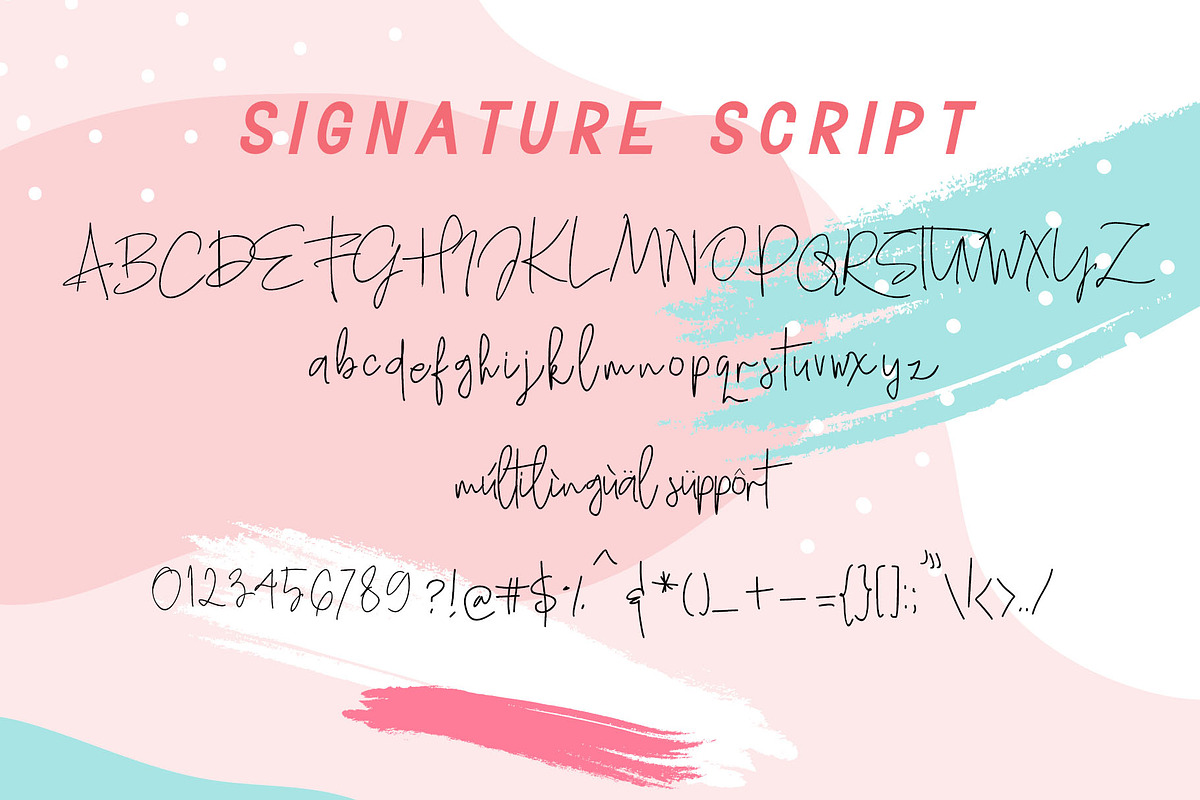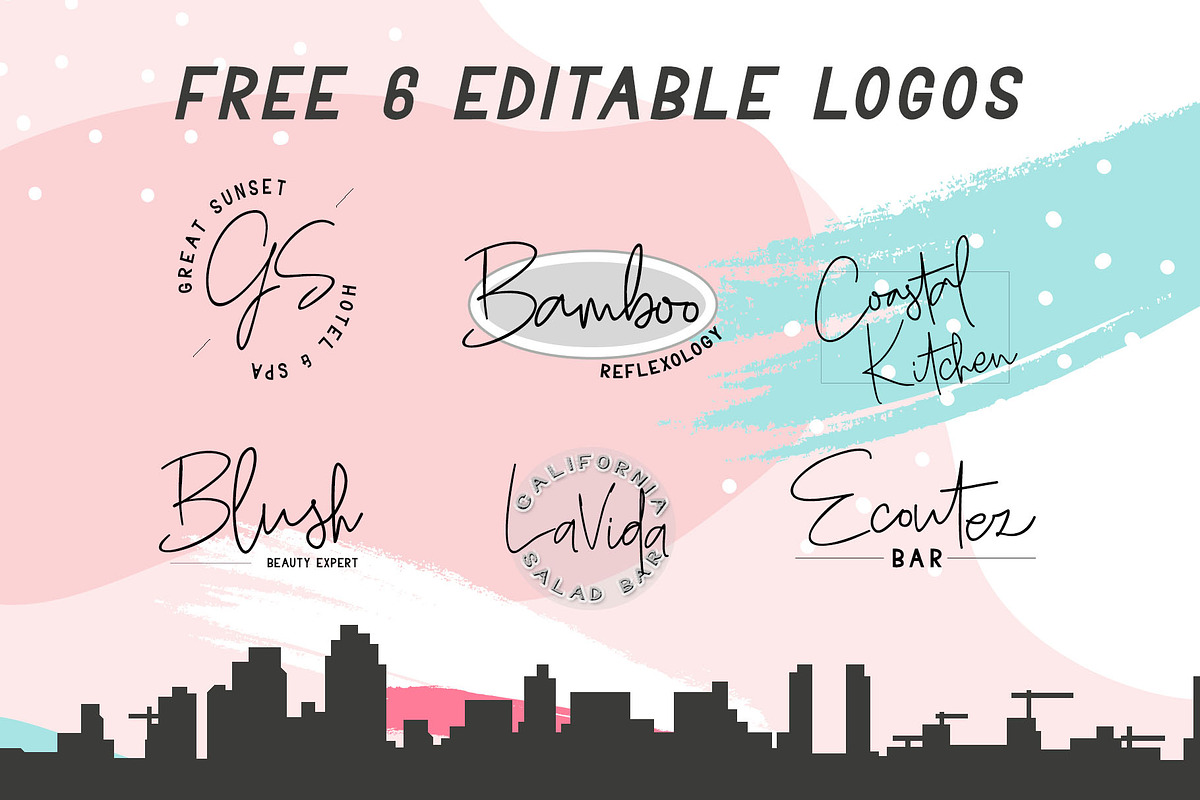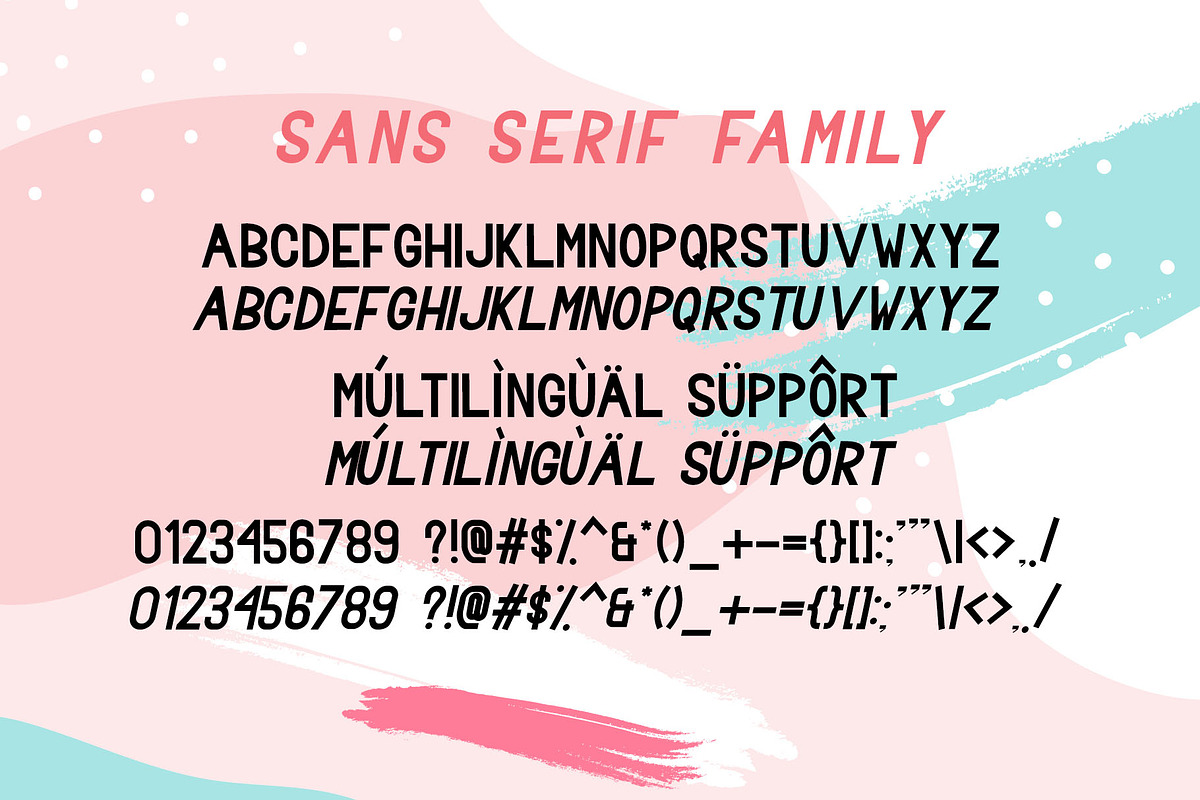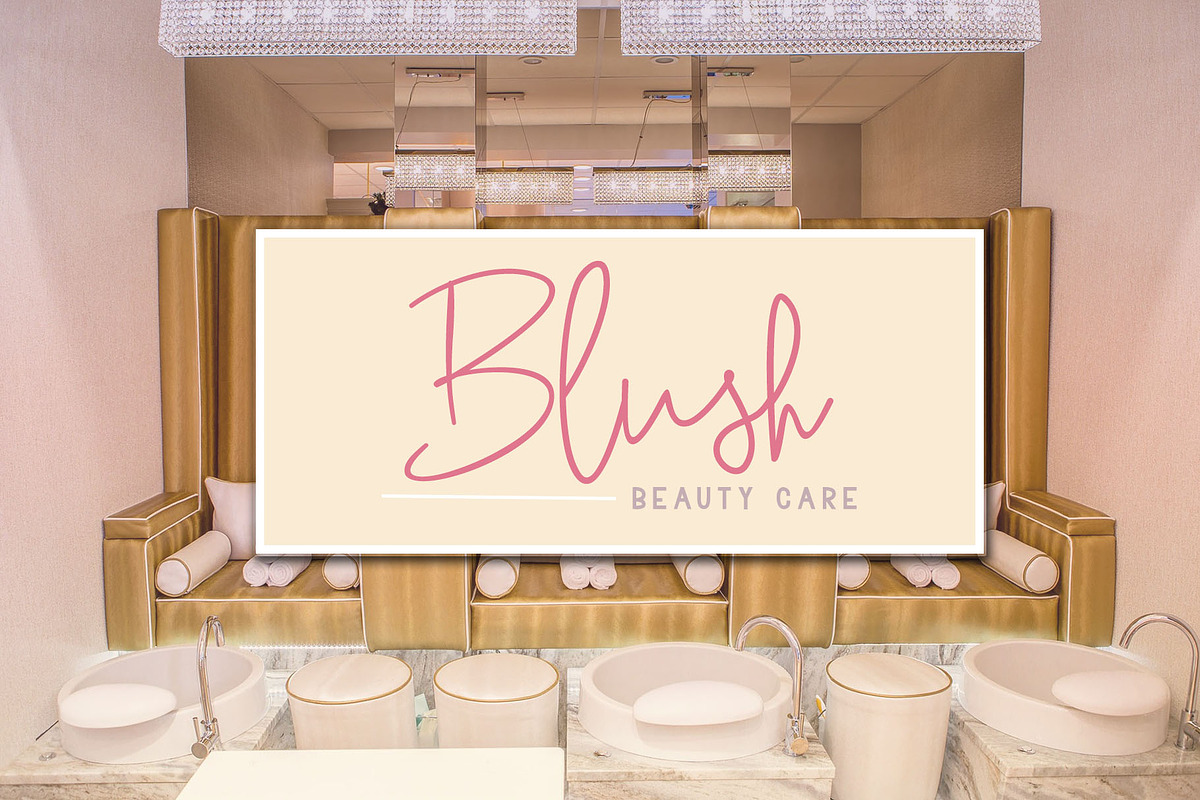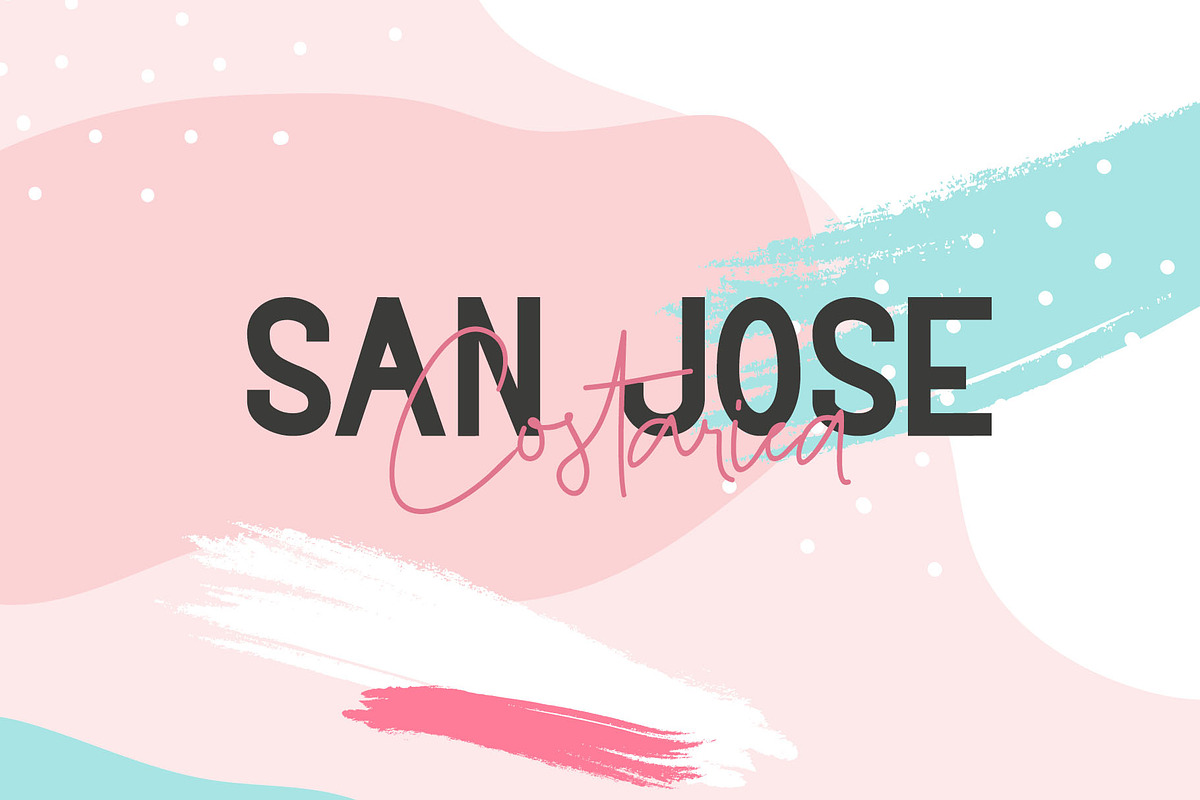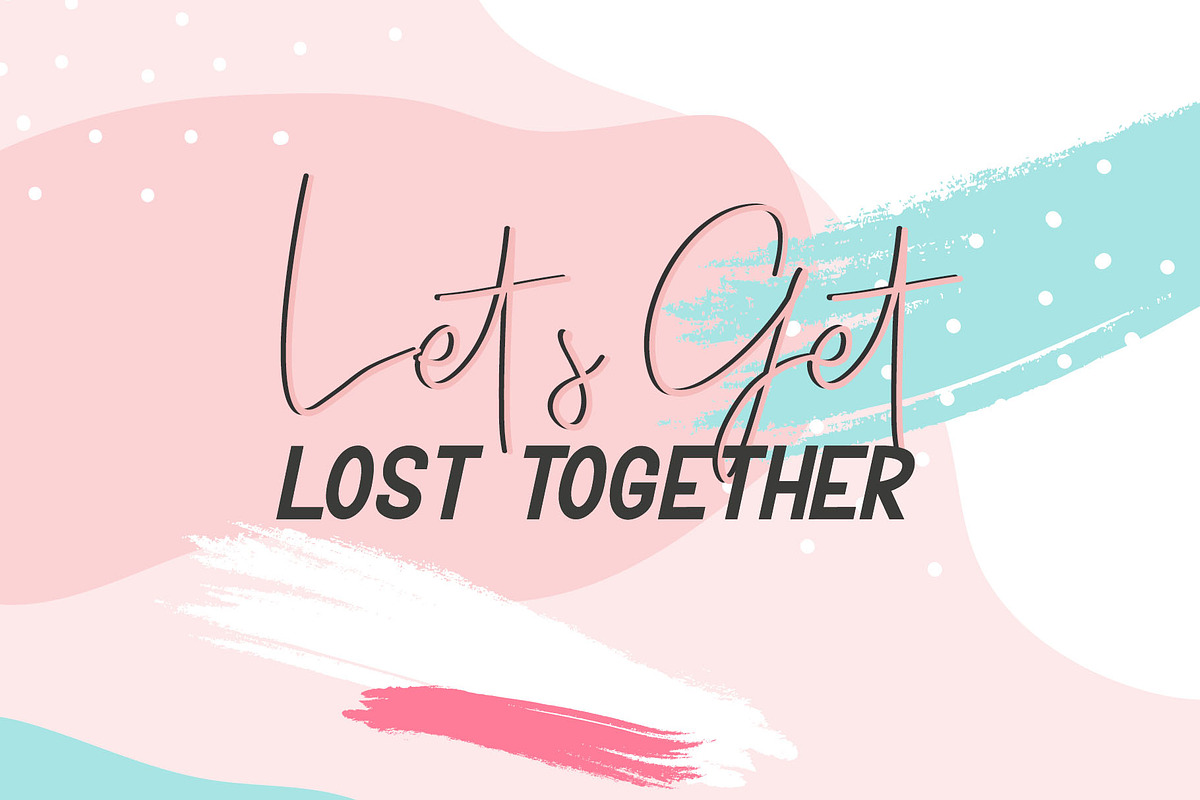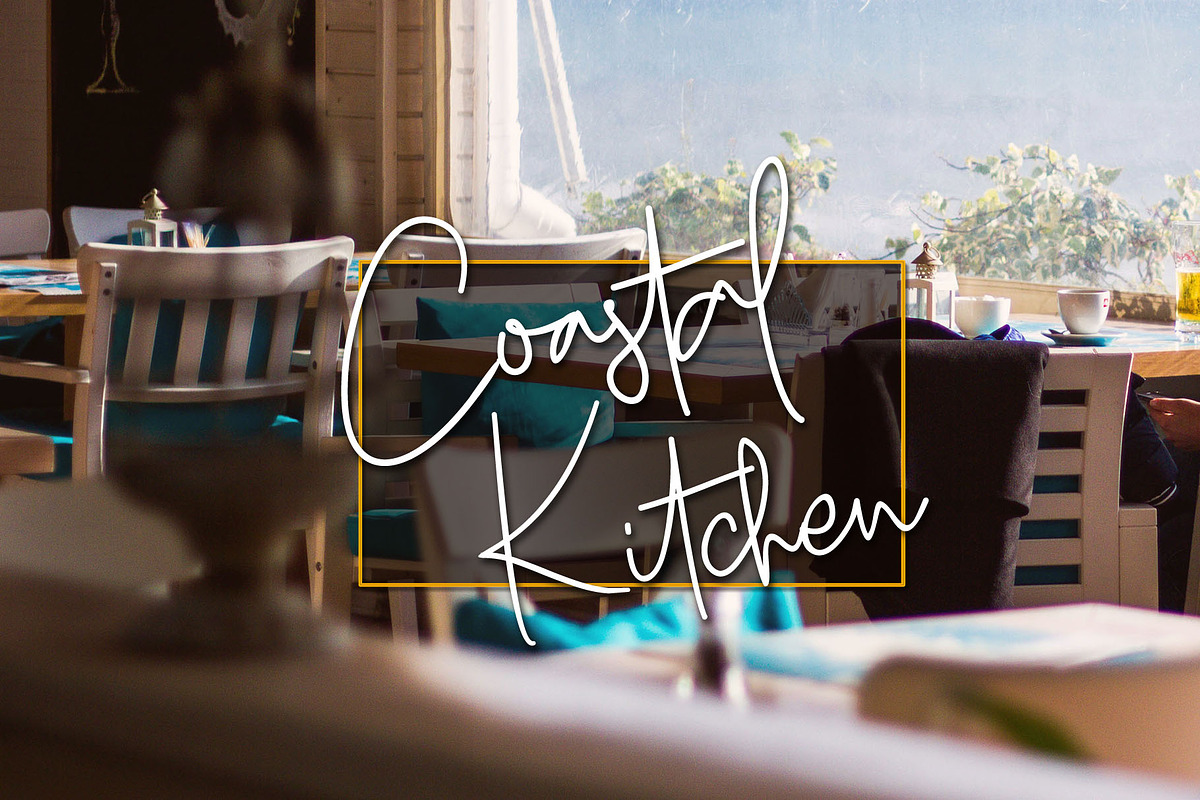
San Diego - Font Duo + Extra Logo
San Diego Font Duo is a gorgeous combination of Sans Serif and Signature Script Style. This stylish fonts are great for modern designs, logos, posters, branding, social media or blog posts, headers and more! With 111 ligatures for the Handwritten Script font that works perfectly on the most design software without any special additional program.
Includes 2 Font Styles, Sans Serif Family Font (Regular and Italic, all in CAPS) and Signature Script Font (Uppercases and lowercases).
Completed with Numerals, Symbols and Punctuation.
Multilinguals Support
111 Ligatures for the Handwritten Script font to make it easy for use.
- Completed with Numerals, Symbols and Punctuation.
- Multilinguals Support
- 111 Ligatures for the Handwritten Script font to make it easy for use.